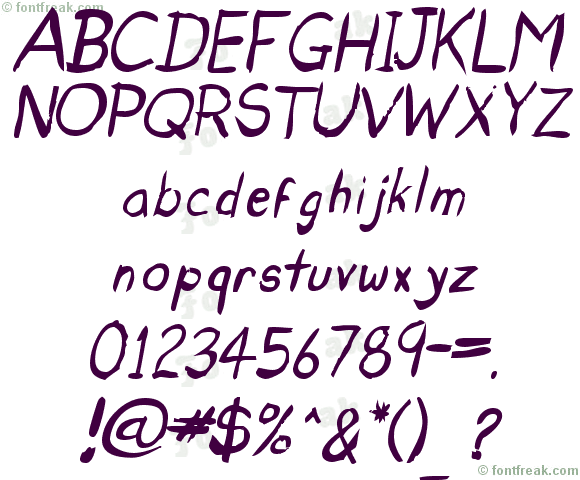
Untidy Italic Skrawl
Introducing the Untidy Italic Skrawl font by Gemfonts, a unique handwritten typeface that embraces an informal and whimsical style. This font belongs to the decorative category, specifically designed to evoke a sense of spontaneity and artistic flair. With its uneven stroke weights and playful, sketched appearance, Untidy Italic Skrawl captures the essence of casual handwriting, making it perfect for projects that require a personal touch.
Visually, the font features a mixture of thick and thin strokes, creating a dynamic contrast that enhances its quirky character. The irregular spacing between letters adds to its untamed charm, making each word feel alive and expressive. Decorative elements, such as exaggerated curves and playful loops, contribute to its overall charm, making it an excellent choice for creative endeavors.
The Untidy Italic Skrawl font shines in a variety of applications. It is particularly suited for wedding invitations, where its whimsical nature adds a personal touch to the couple’s special day. Additionally, it can be utilized for movie posters, creating a sense of intrigue and artistic flair that draws the viewer in. Restaurant menus can also benefit from this font, offering a unique and inviting aesthetic that reflects a casual dining experience. Furthermore, content creators looking to add a distinctive voice to their social media graphics will find this font an appealing choice.